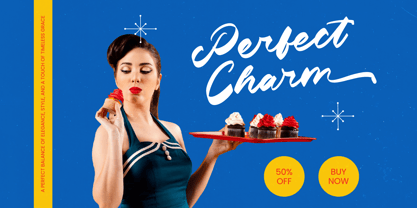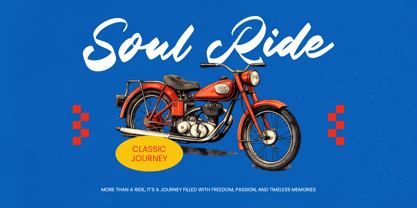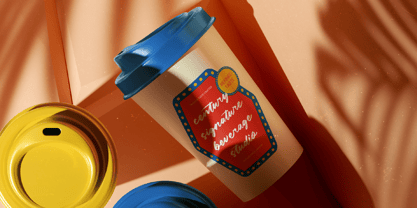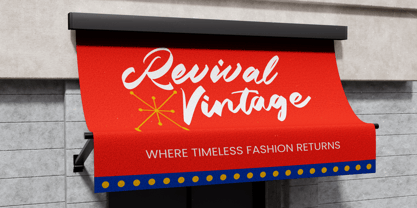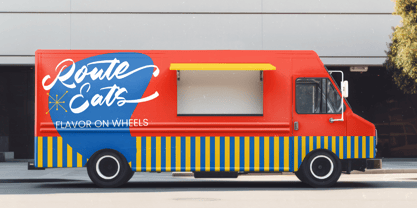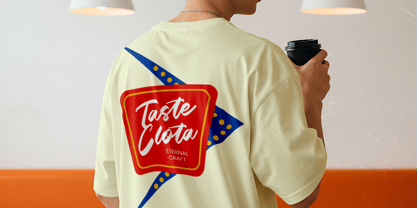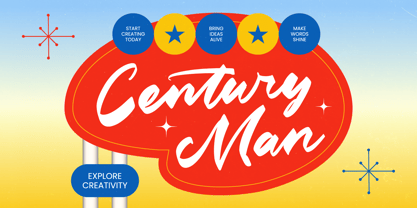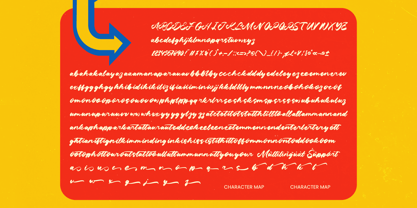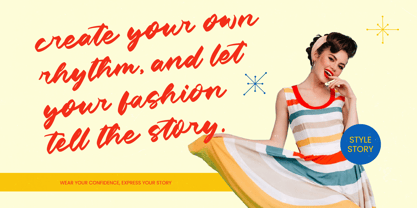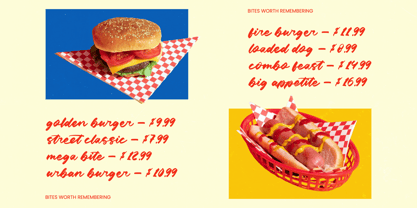
Century Man
The Century Man Font Family was designed by Heru Utama Putra and published by Letterena Studios. Century Man contains 2 styles and family package options. More about this family
Century Man - Bold Calligraphy Font
Elevate your creative vision with a typeface that embodies mid-century charm and modern sophistication. Century Man - Bold Calligraphy Font is a premium brush-script typeface that perfectly balances bold energy with an elegant flow. Drawing inspiration from classic advertising aesthetics, this font features dynamic strokes and a handcrafted feel that commands attention while maintaining high legibility. Its thick-to-thin contrast and rhythmic letterforms make it a standout choice for designers looking to inject vintage personality into contemporary layouts.
Experience unparalleled design flexibility with a robust set of typographic features. Boasting 24 unique alternates and 177 artistic ligatures, Century Man - Bold Calligraphy Font allows for custom-tailored typography that feels truly bespoke. These OpenType features ensure that every word looks fluid and intentional, providing the authentic calligraphy look required for high-end projects that demand a sophisticated touch.